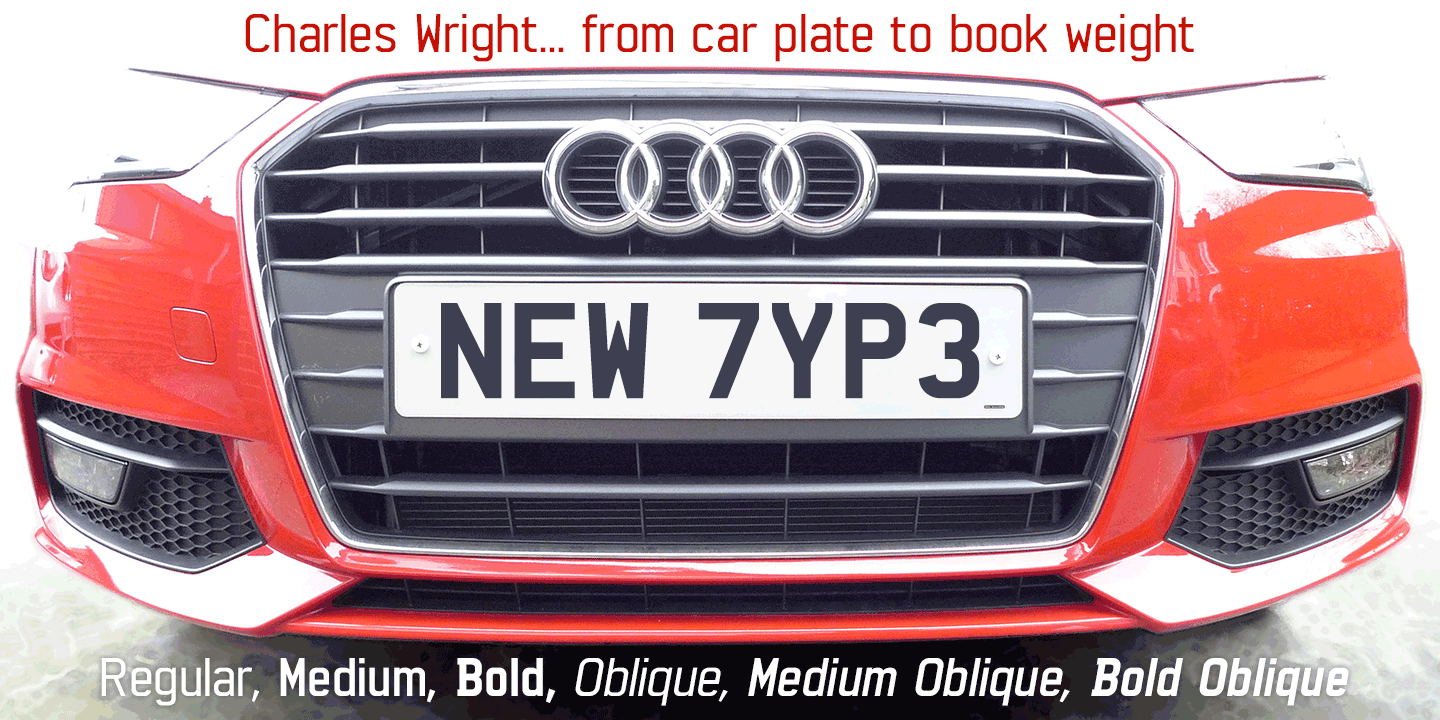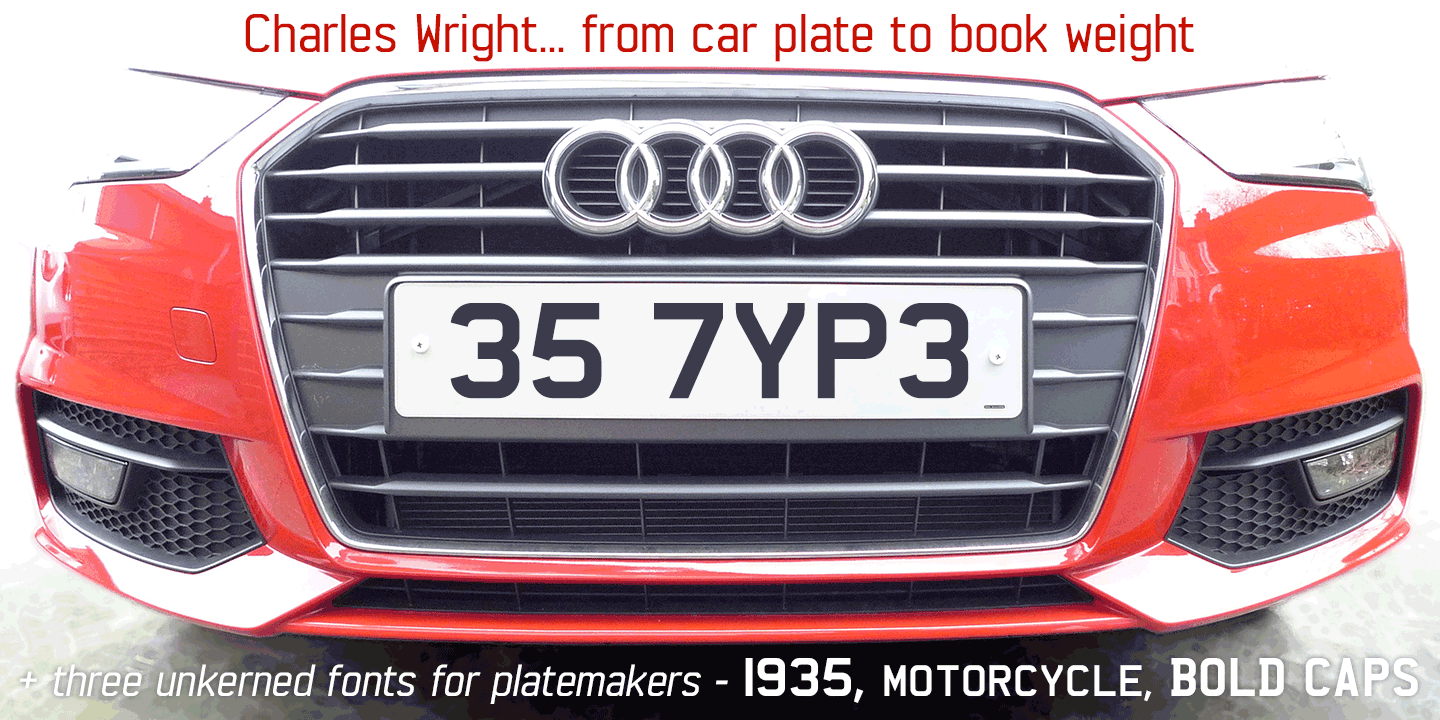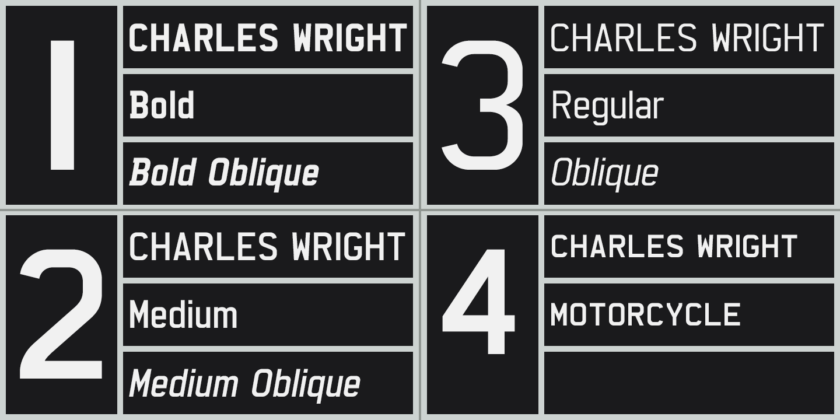
About Charles Wright
K-Type Charles Wright is a full typeface in the style of lettering used for British vehicle plates. The family includes the standard Bold weight which is based on the condensed bold ?2001? style with an uppercase which conforms to British registration…